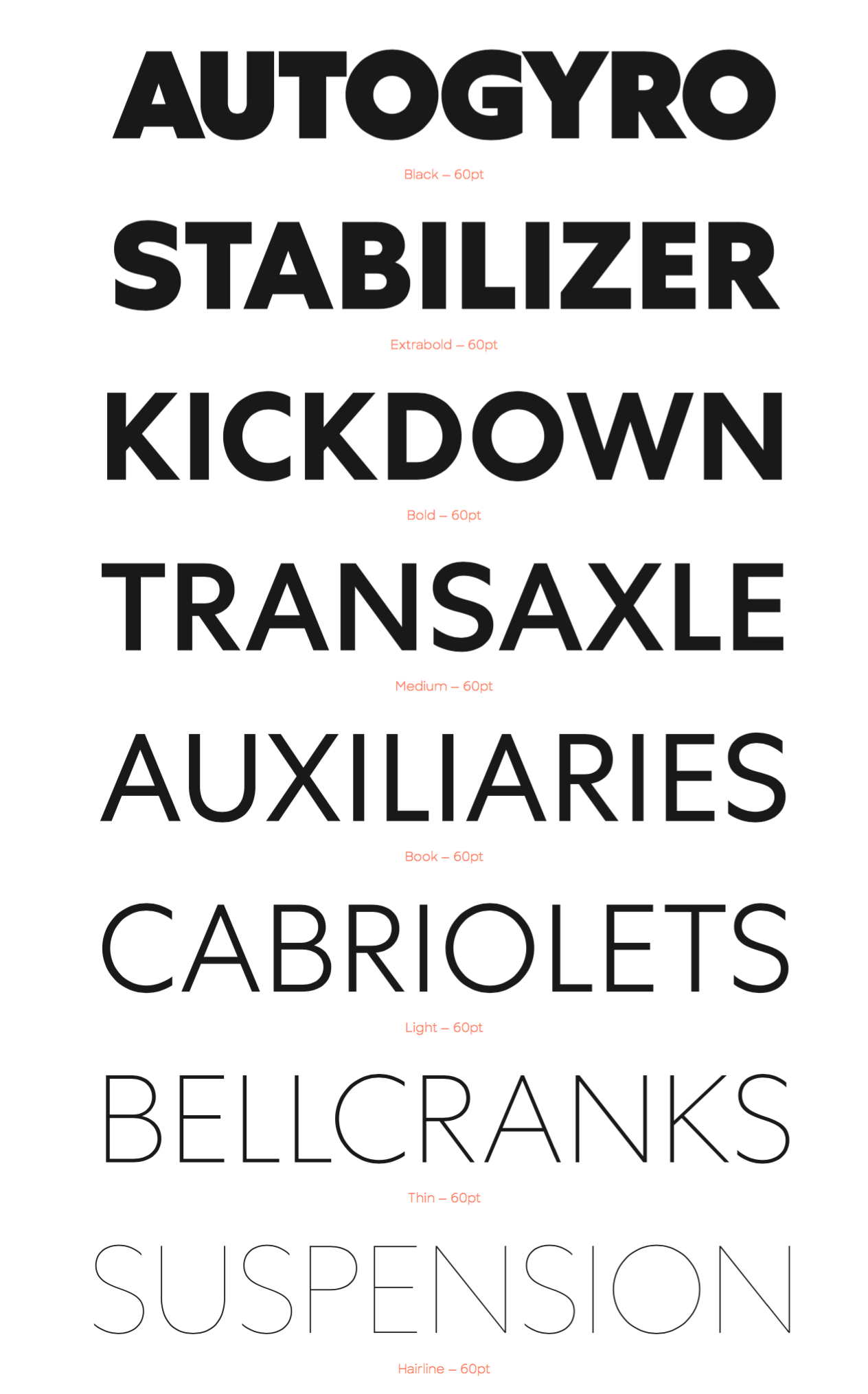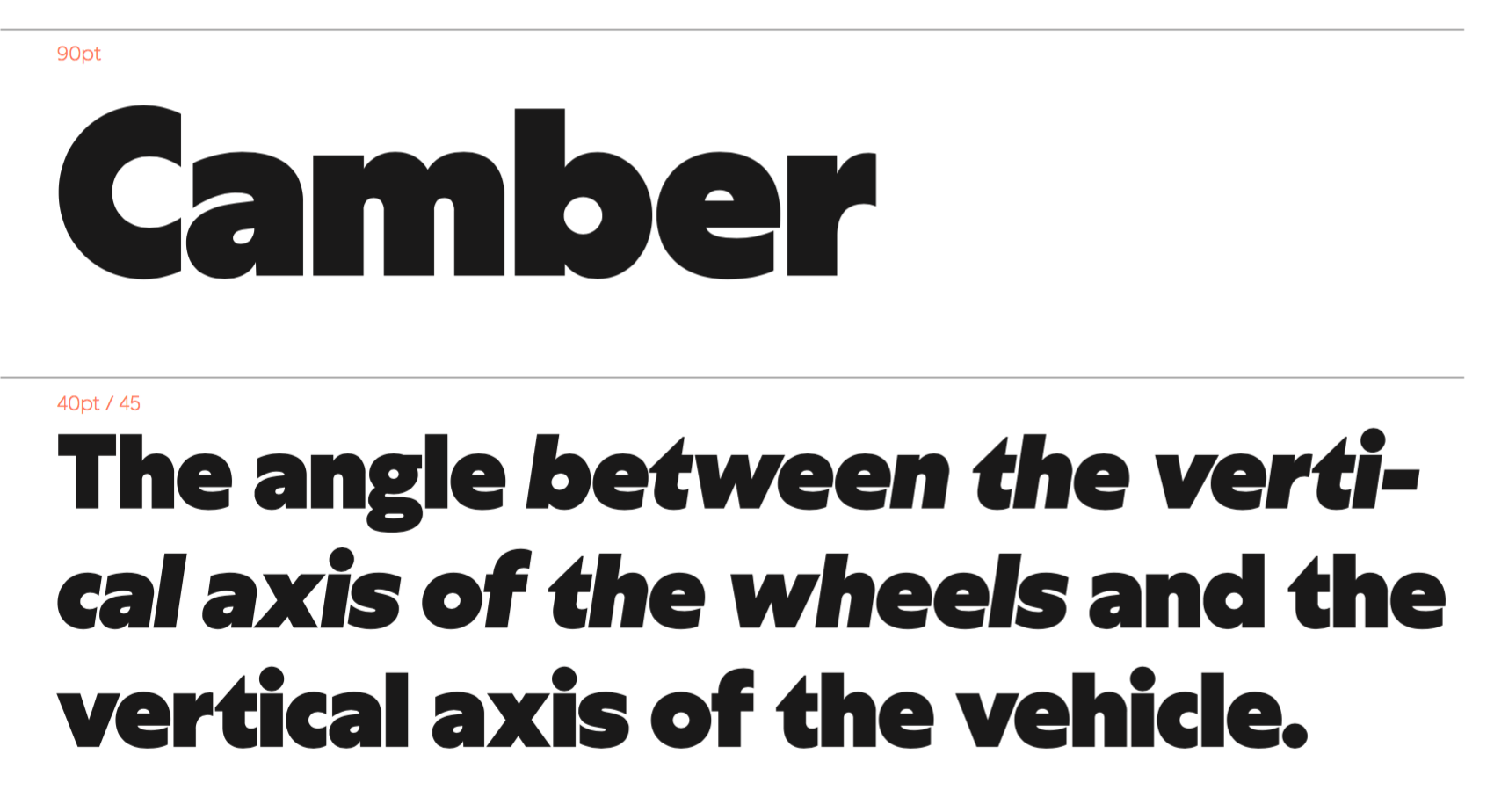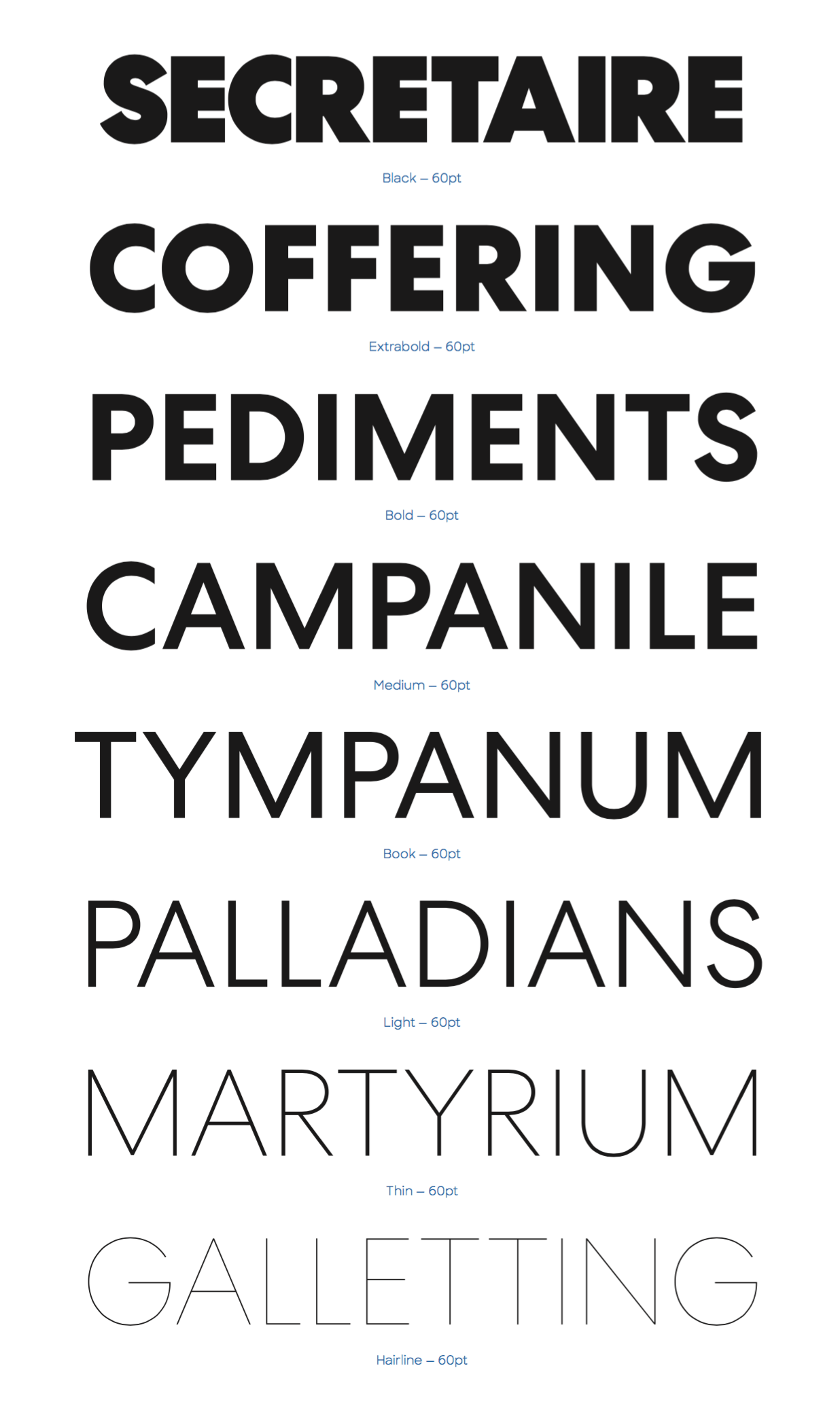
Awasome Centra No1 Font Download Ideas. Web centra no1 hairline italic version 1.000 font (font family name: Web yahoo logo font family.
Centra no1 bold italic version 1.000; The latest addition fonts more. Yahoo logo is a logo type font that can be used on any device such as pc,.
Web Centra No2 Bold Italic.
Hairline Italic), 469 Characters In Total.
It Contains Geometric, Single Story Constructions Of Its Lowercase “A” And.